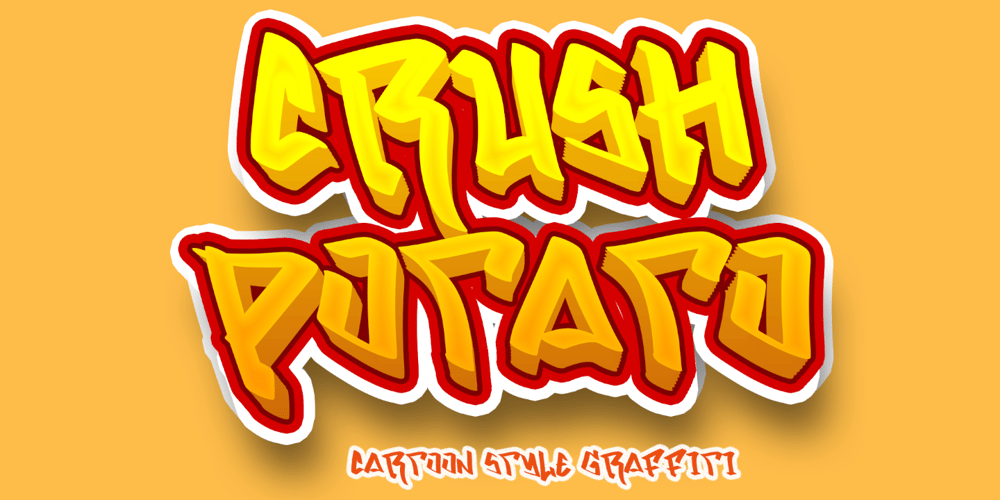
Crush Potato
Crush Potato font
Crush Potato Font Family was designed by Isroni Yoga Prasetya and published by Yoga Letter. Crush Potato contains 1 styles and family package options. “Crush Potato” is an elegant and unique graffiti font. This font is equipped with uppercase, lowercase, numerals, punctuations and multilingual support. Very suitable for business branding, business logos, banners, posters, branding, prints, stickers, tumblers, t-shirts, mugs and others.